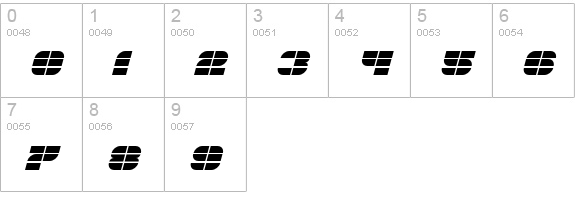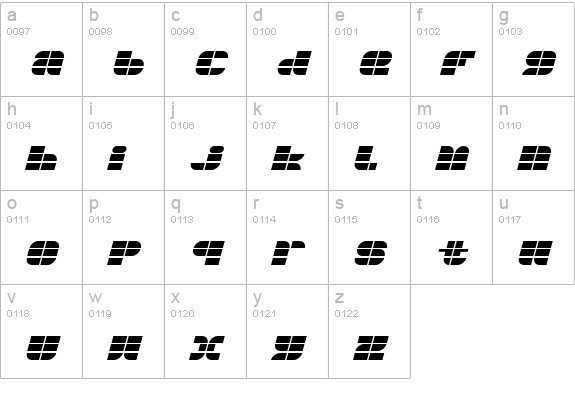
104-Oblique Font Details
104-Oblique is a distinctive, italic variant in the 104 typeface family \xE2\x80\x94 well suited to design and typography projects.
The 104-Oblique font exudes a sense of modernity and sophistication with its sleek and stylish design. Its slanted and angular appearance adds a dynamic touch to any text or design project. This font strikes the perfect balance between elegance and creativity, making it ideal for a wide range of applications. What sets the 104-Oblique font apart is not only its aesthetic appeal but also its versatility. Whether you're designing a logo, creating a poster, or crafting a website, this font will elevate your work to new heights. Its clean lines and crisp edges ensure clarity and readability, while its unique oblique angle adds a touch of flair. The best part? The 104-Oblique font is available for free download at FontsMarket.com. Now you can effortlessly incorporate this stunning font into your projects without breaking the bank. Don't miss out on the opportunity to enhance your designs with the 104-Oblique font's contemporary charm and timeless appeal. Download it today and unleash your creativity!